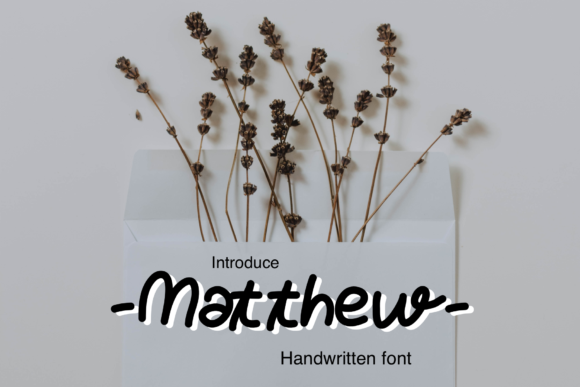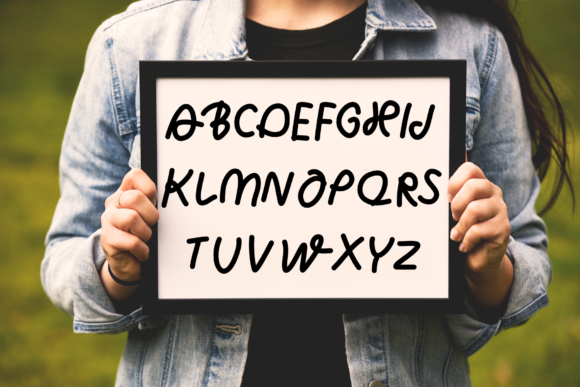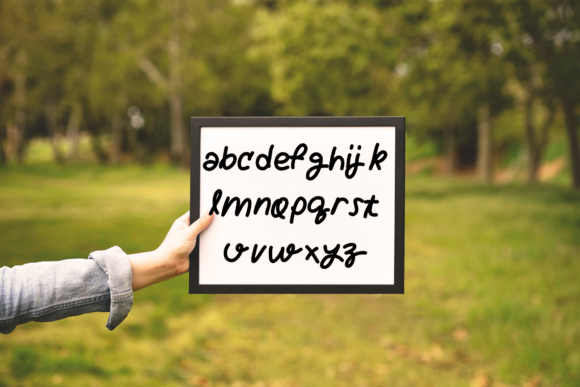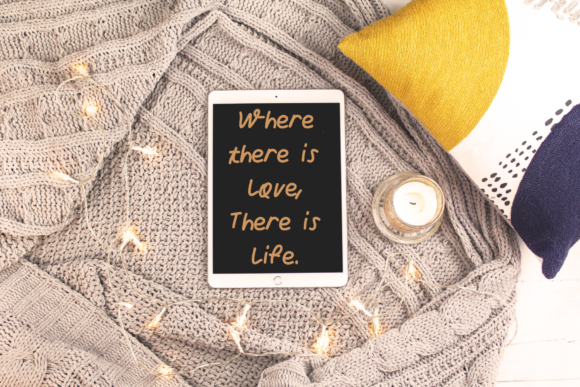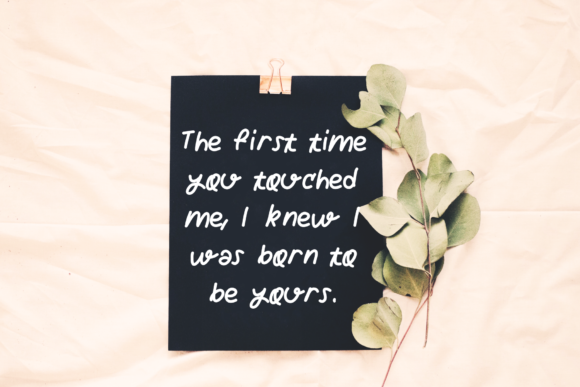
Matthew Font
About Matthew Font
Matthew is a sweet and friendly handwritten font. Its natural and unique style makes it incredibly fitting to a large pool of designs. The only limit is your imagination!